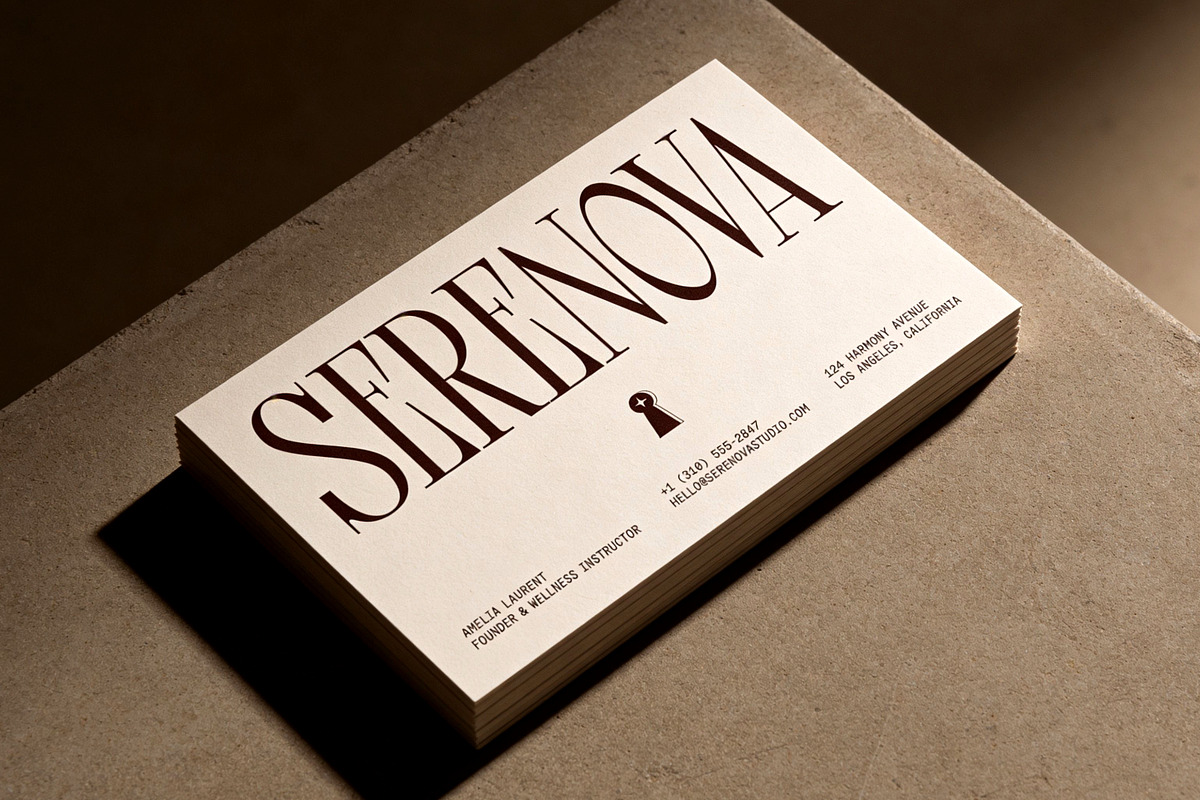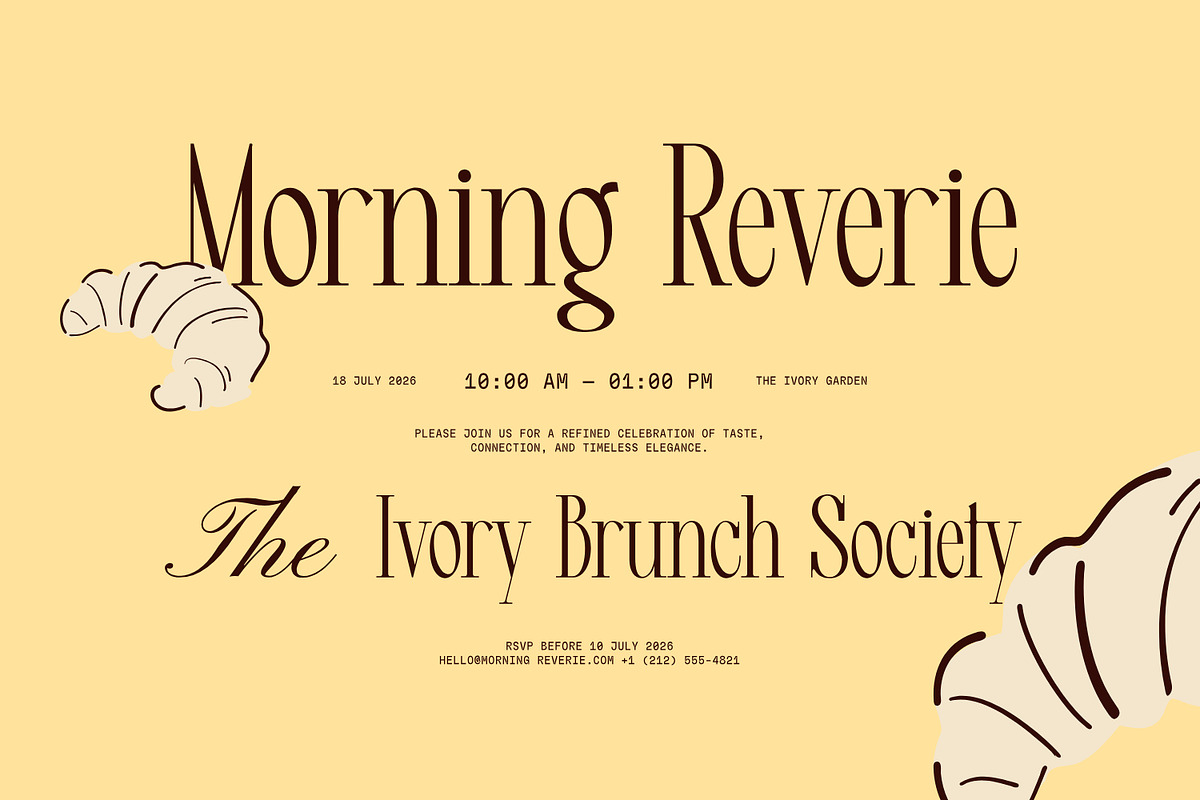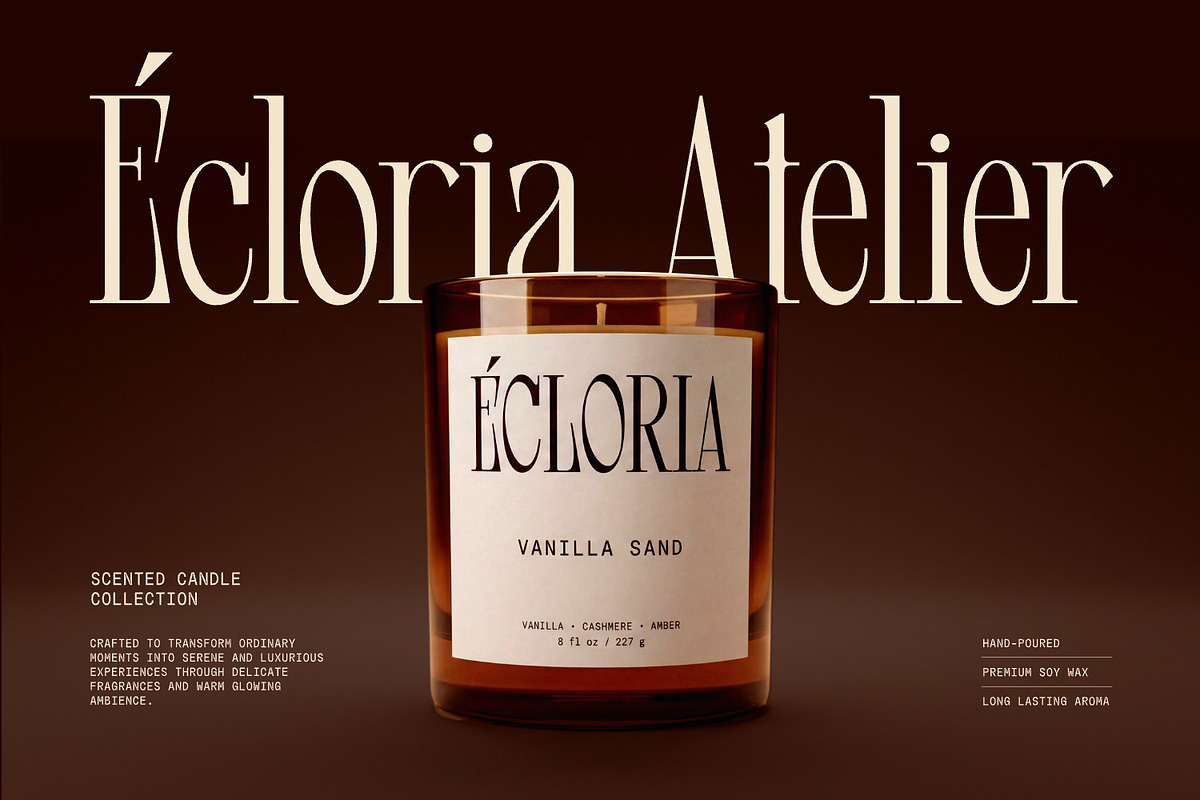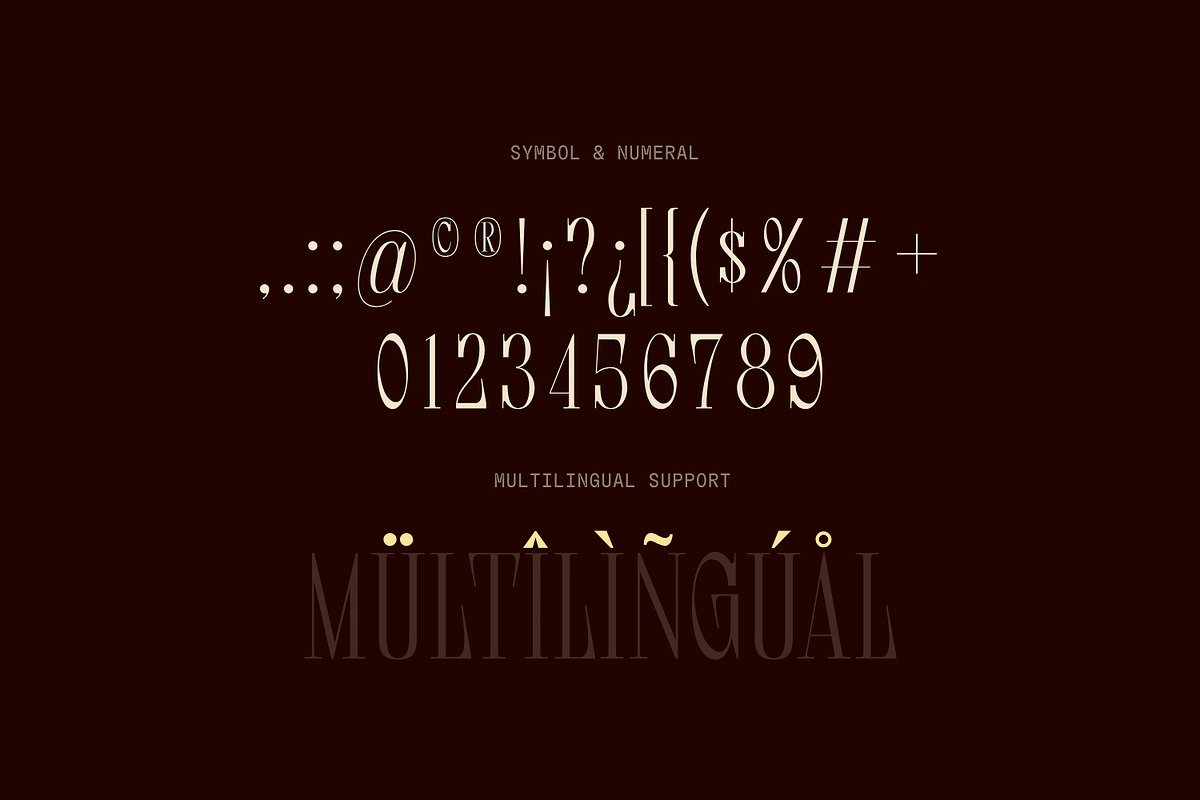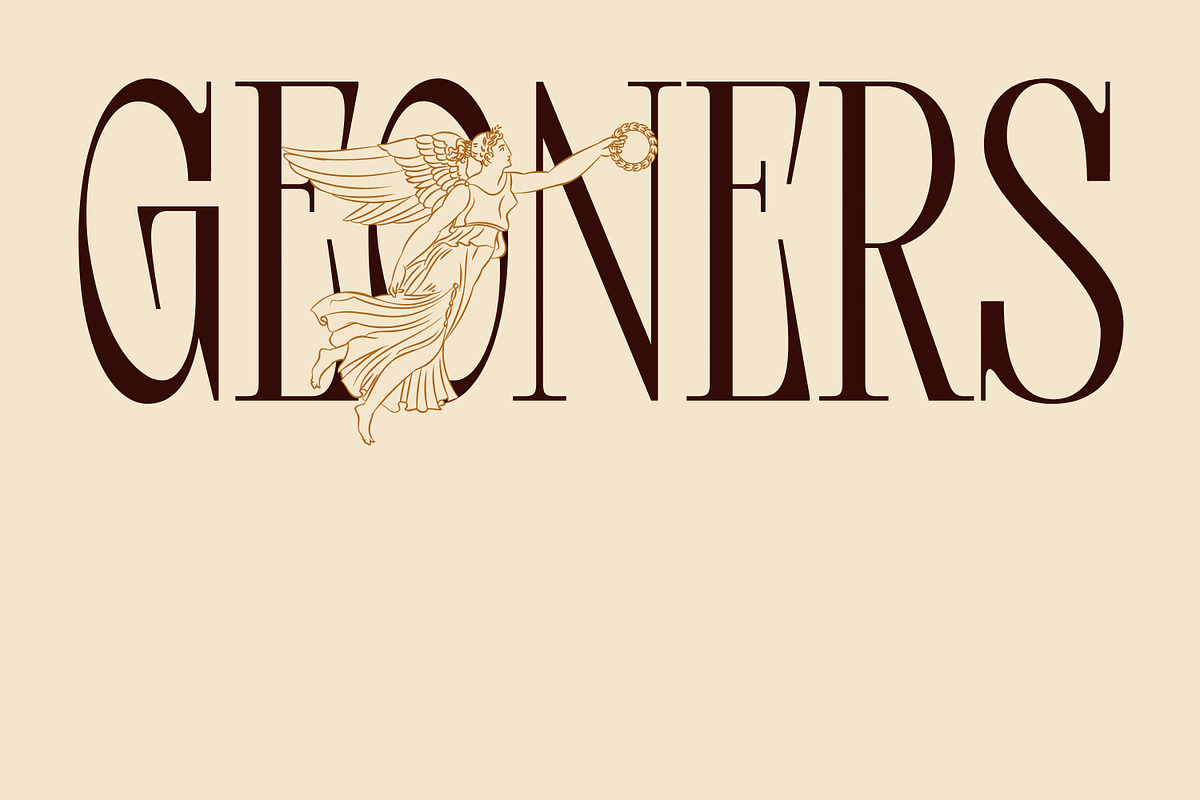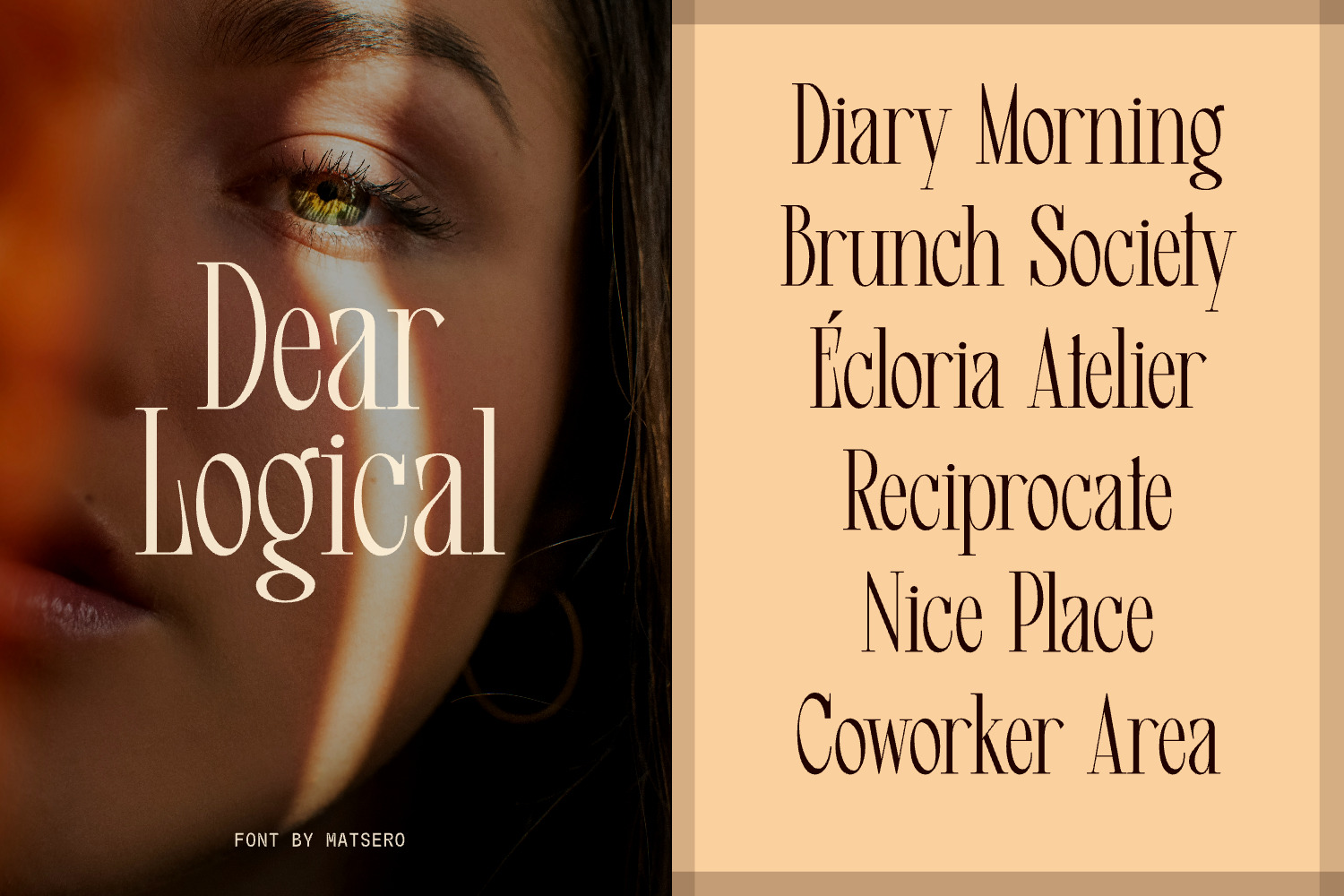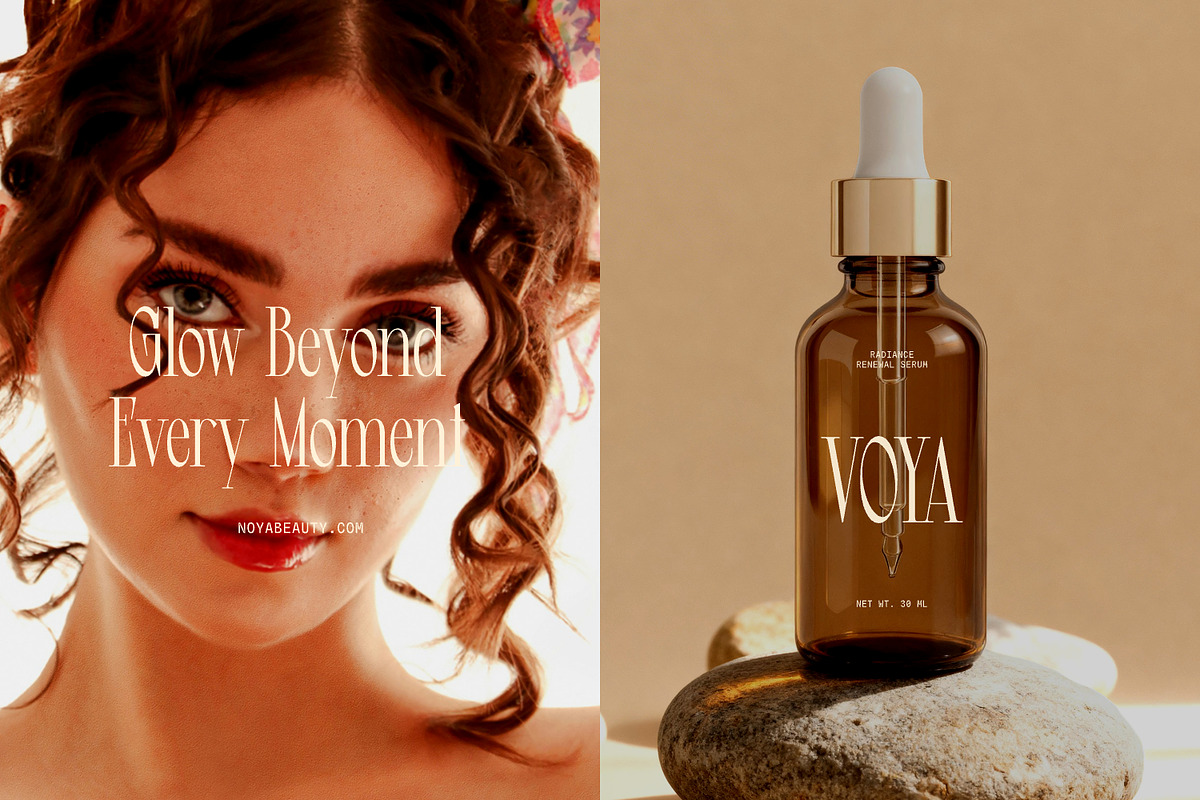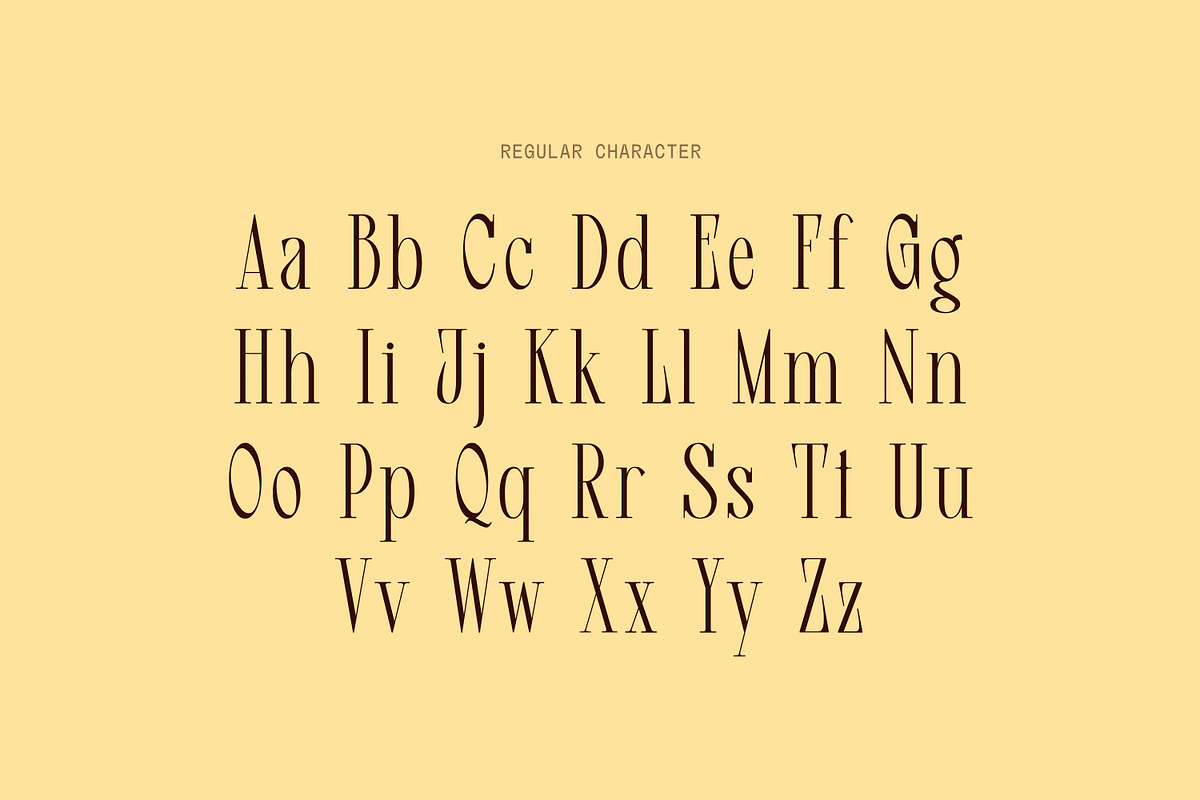
Dear Logical - Display Serif Font
Dear Logical is a versatile mixed-style serif typeface that blends upright roman forms with flowing italic alternates in a single font. Defined by ultra-condensed proportions, razor-thin serifs, and high-contrast vertical stems, it offers a sophisticated balance of classic editorial structure and modern high-fashion aesthetics. Its elongated silhouettes and subtle calligraphic details create dramatic headlines, distinctive logo marks, and high-end print collateral. Whether you are creating luxury packaging for cosmetics, branding fine dining events, or typesetting haute couture magazine covers, Dear Logical brings a refined, timeless elegance to every project.
- Ligatures and alternate characters
- Numerals, punctuation, symbols